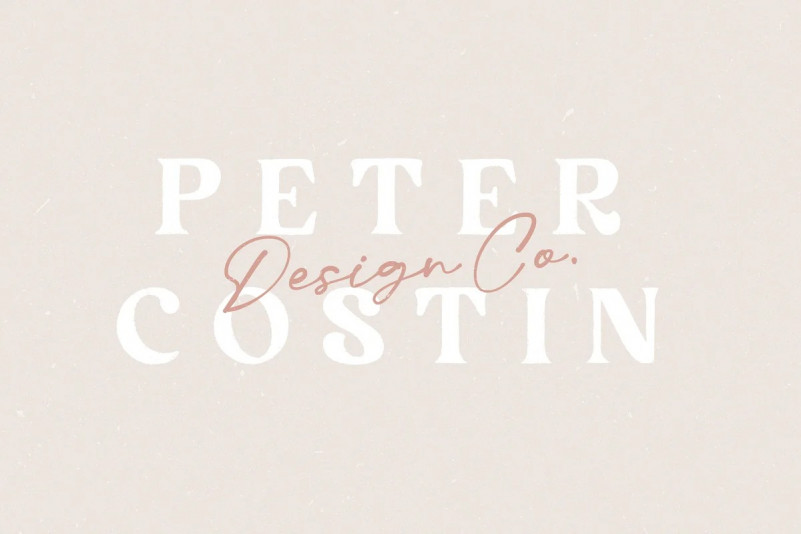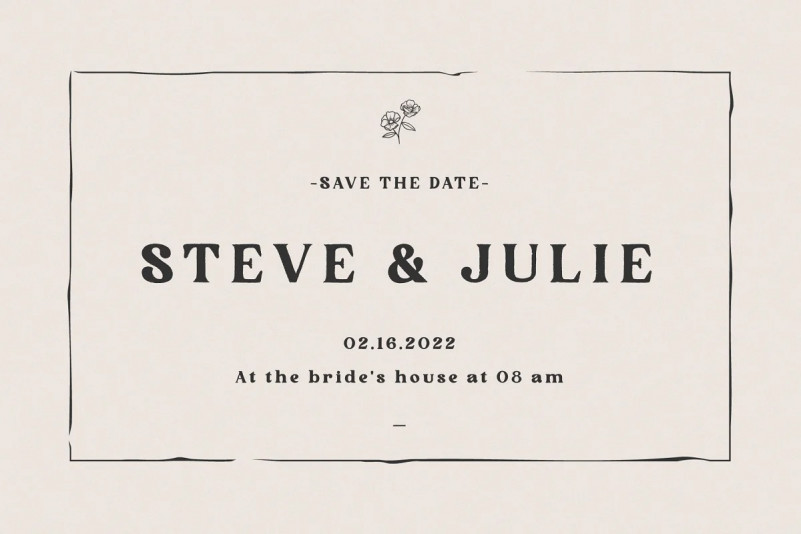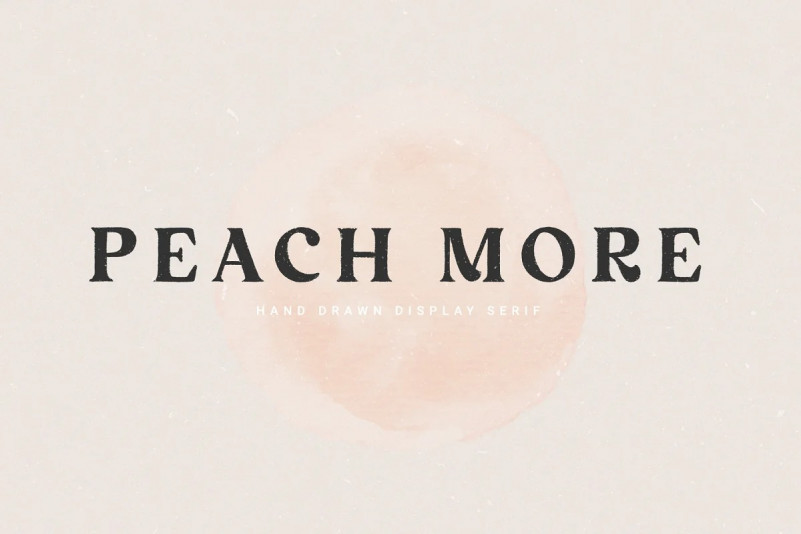
Peach More Serif Font
Say hi to the new typeface. Yes, “Peach More” is a hand-drawn display serif font with a grainy, textured feel. Suitable if you are creating a design project that has a textured impression. Good for branding designs, logos or social media posts.
Features: Uppercase, Lowercase, Numeral, Punctuation & Multilingual.